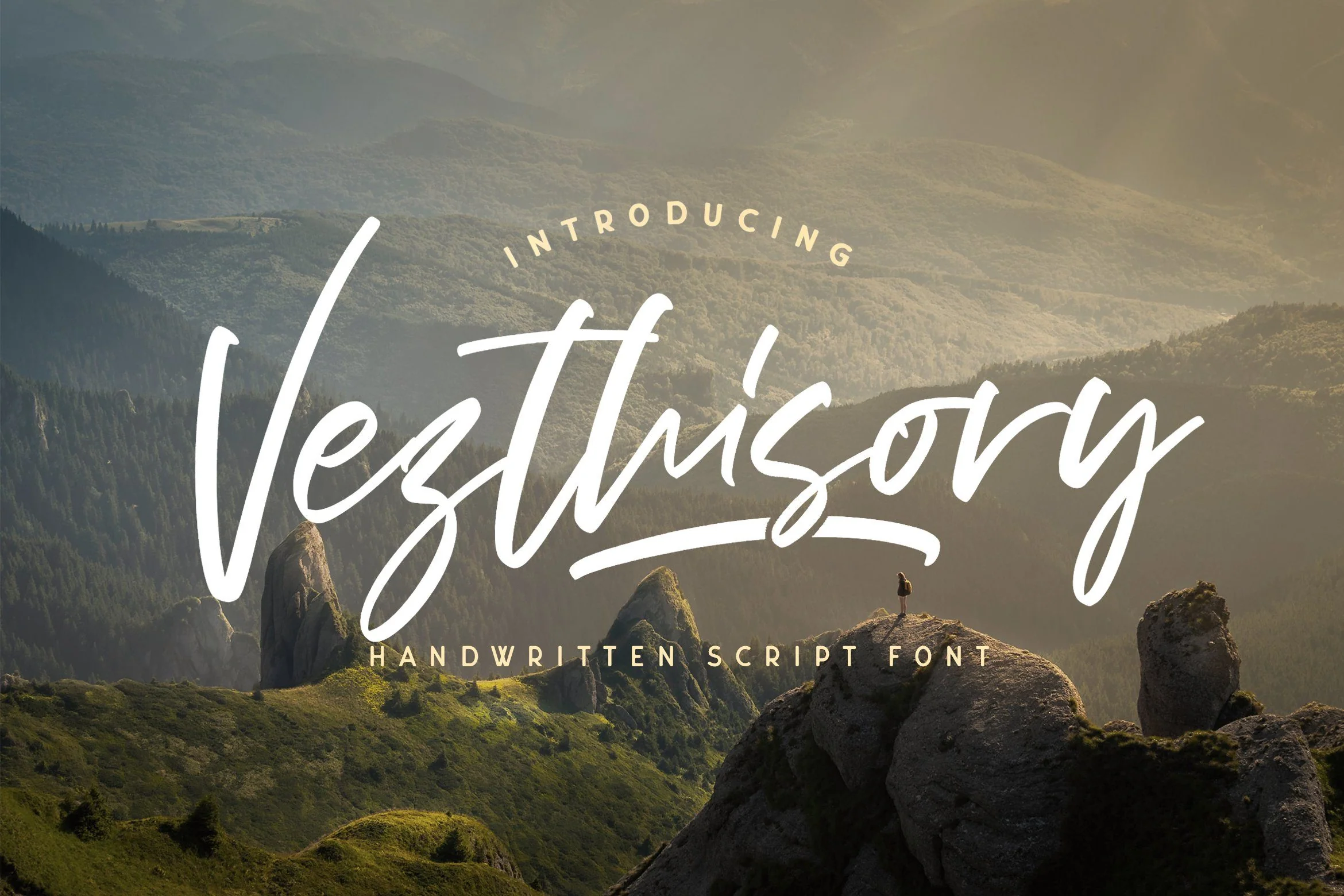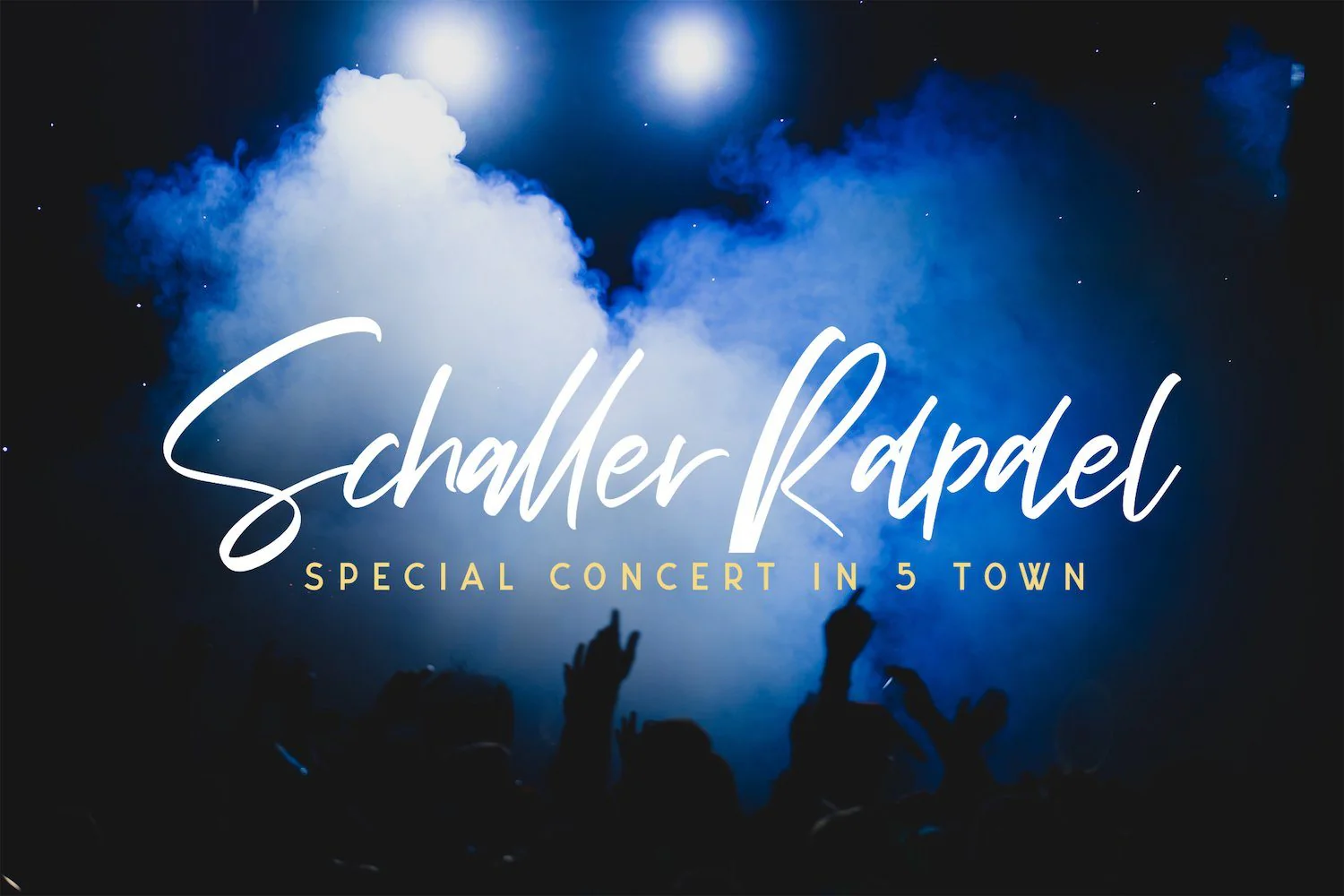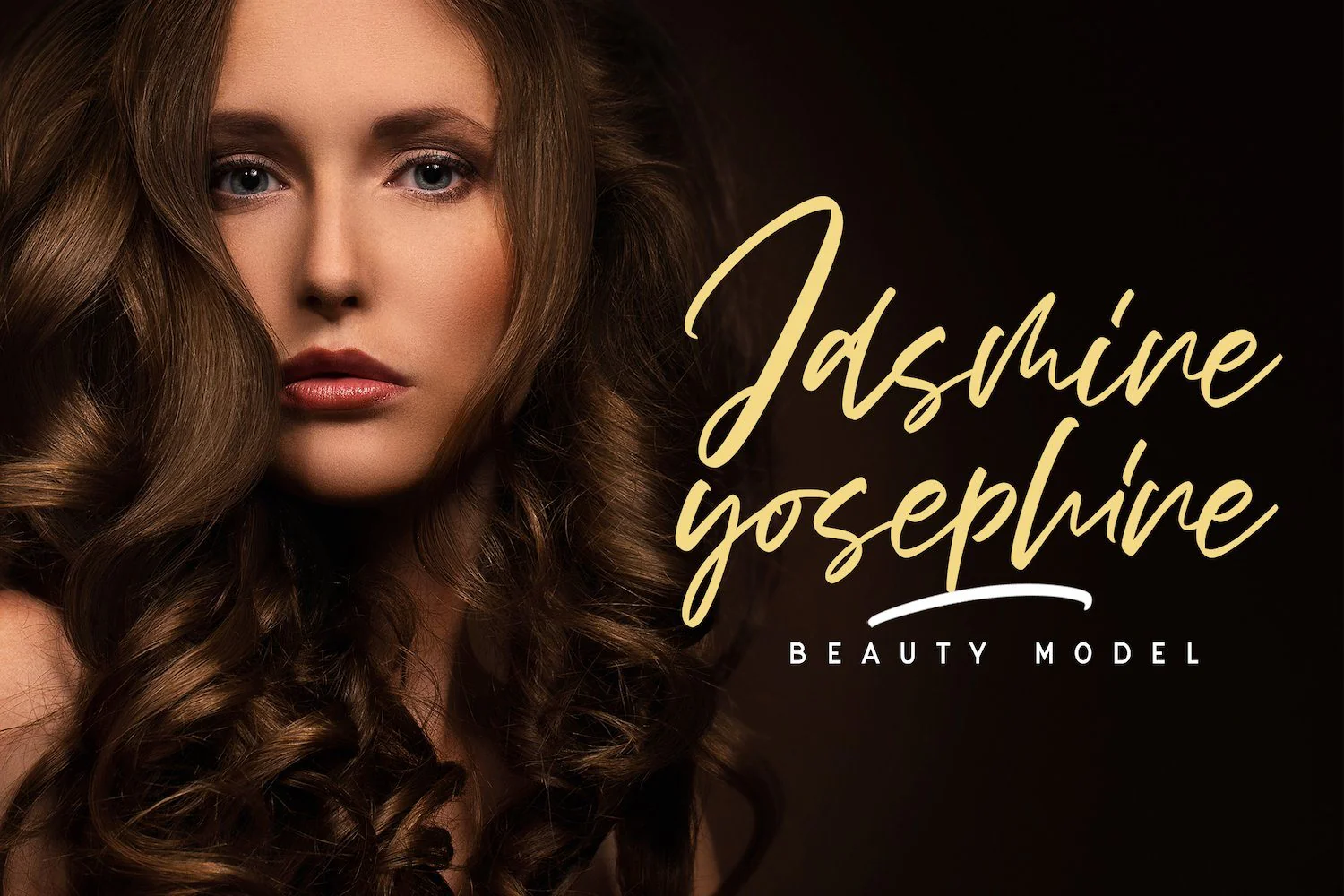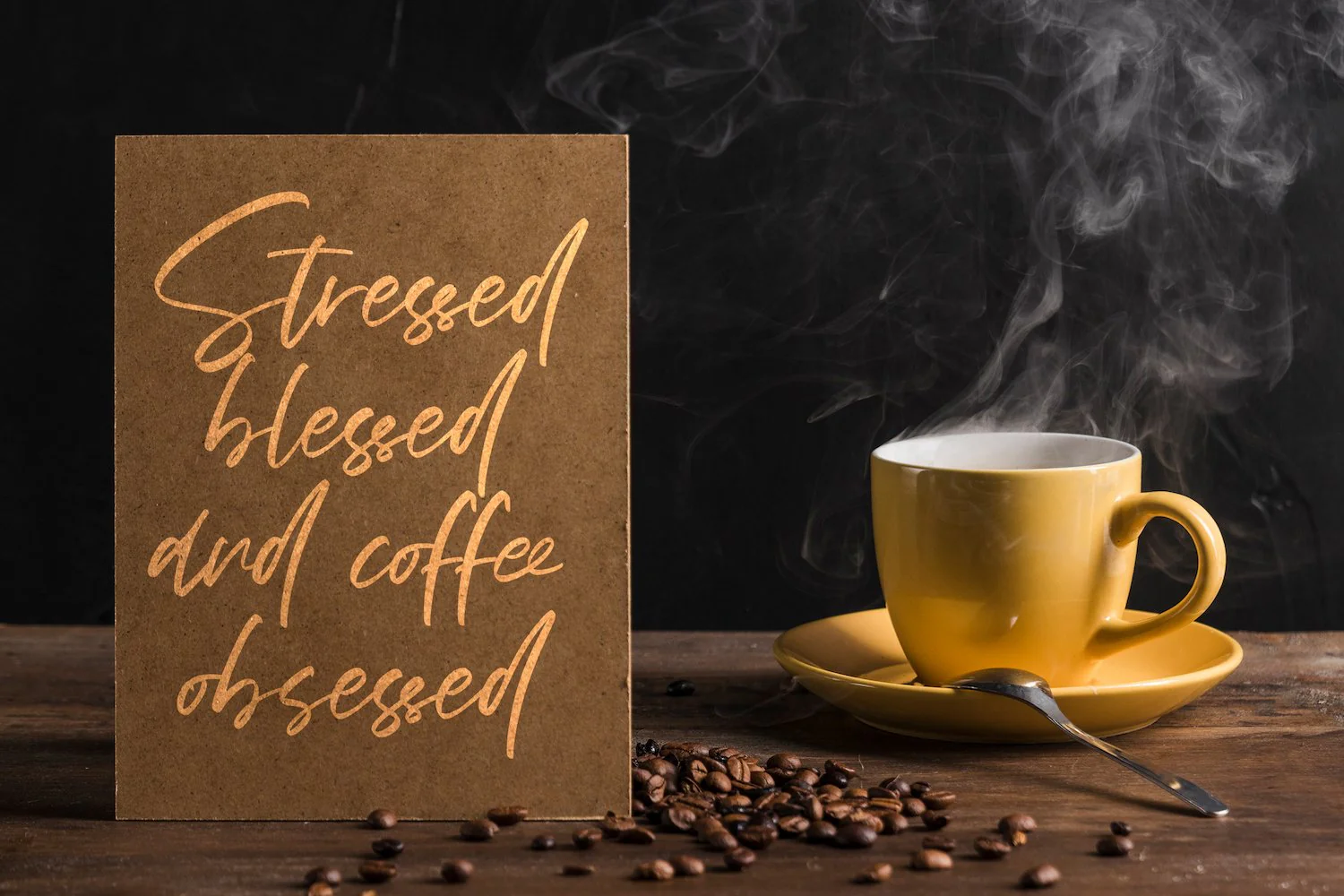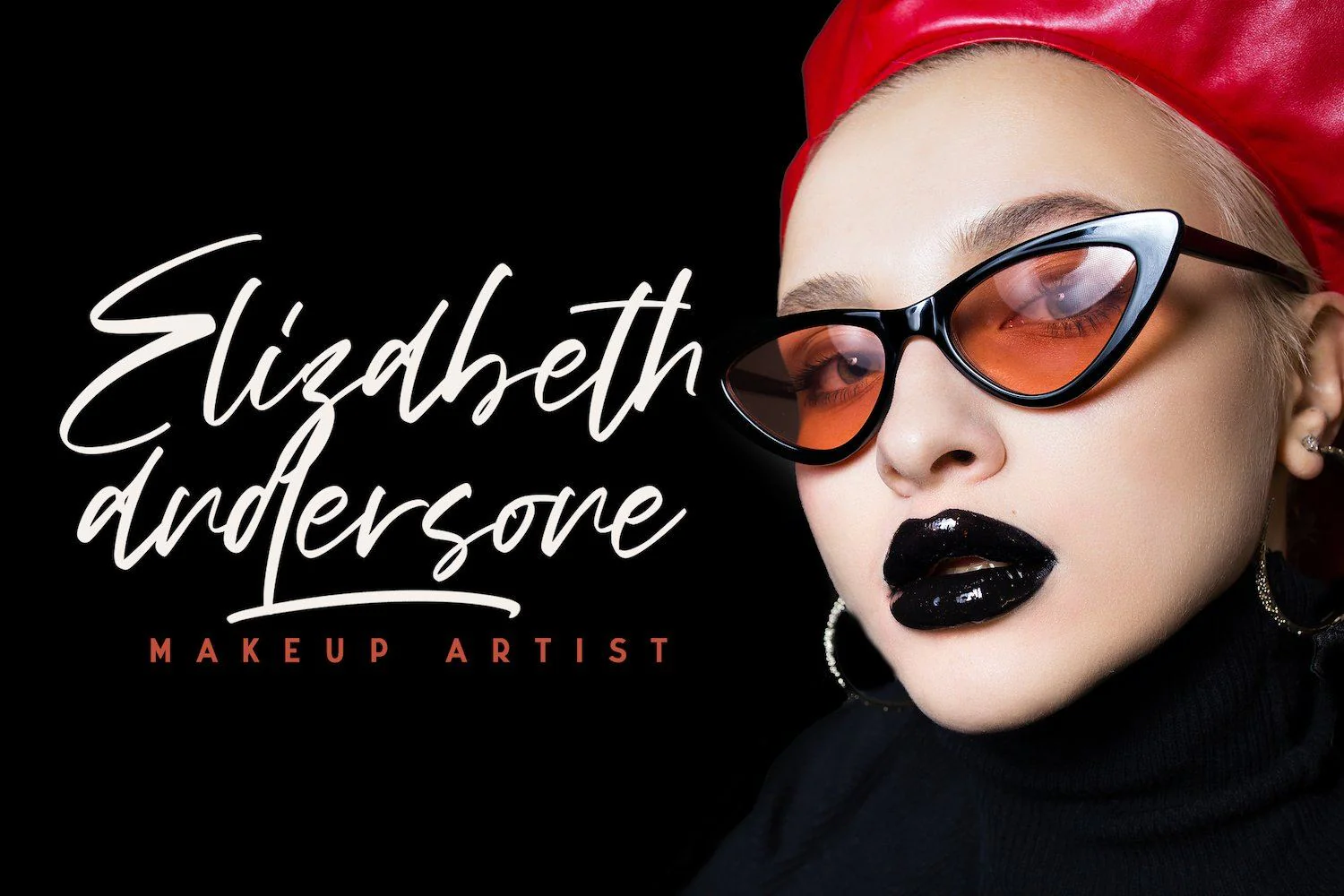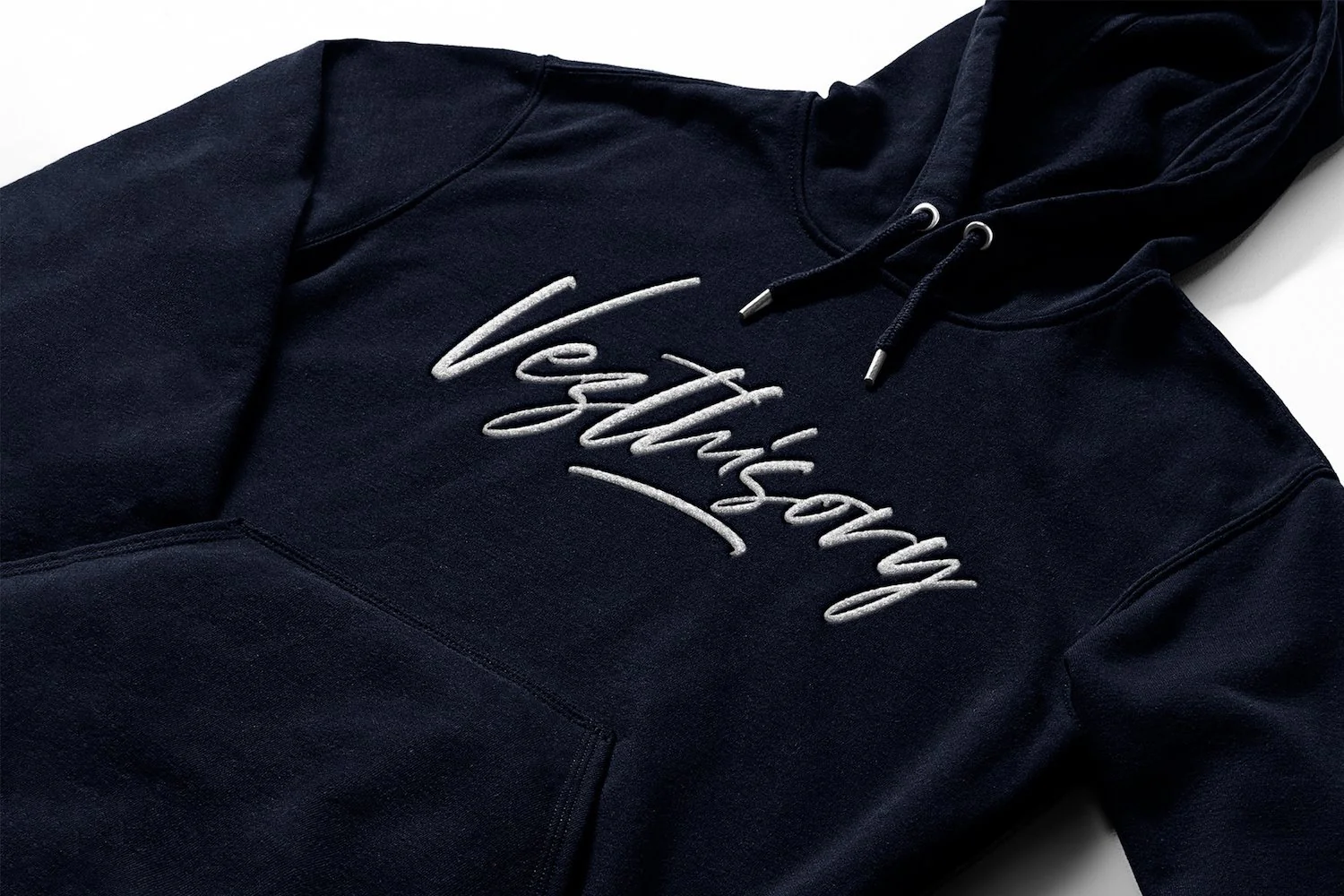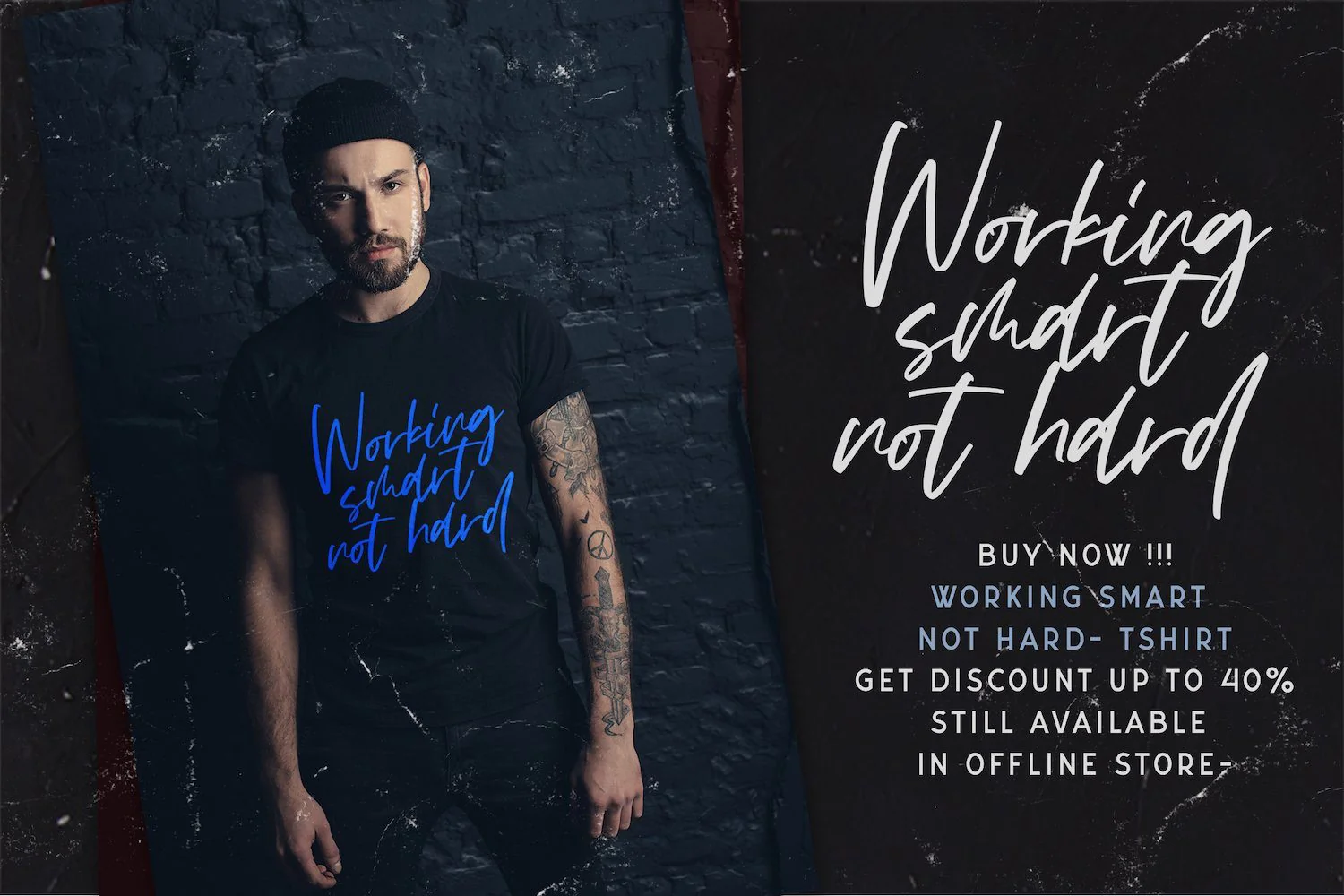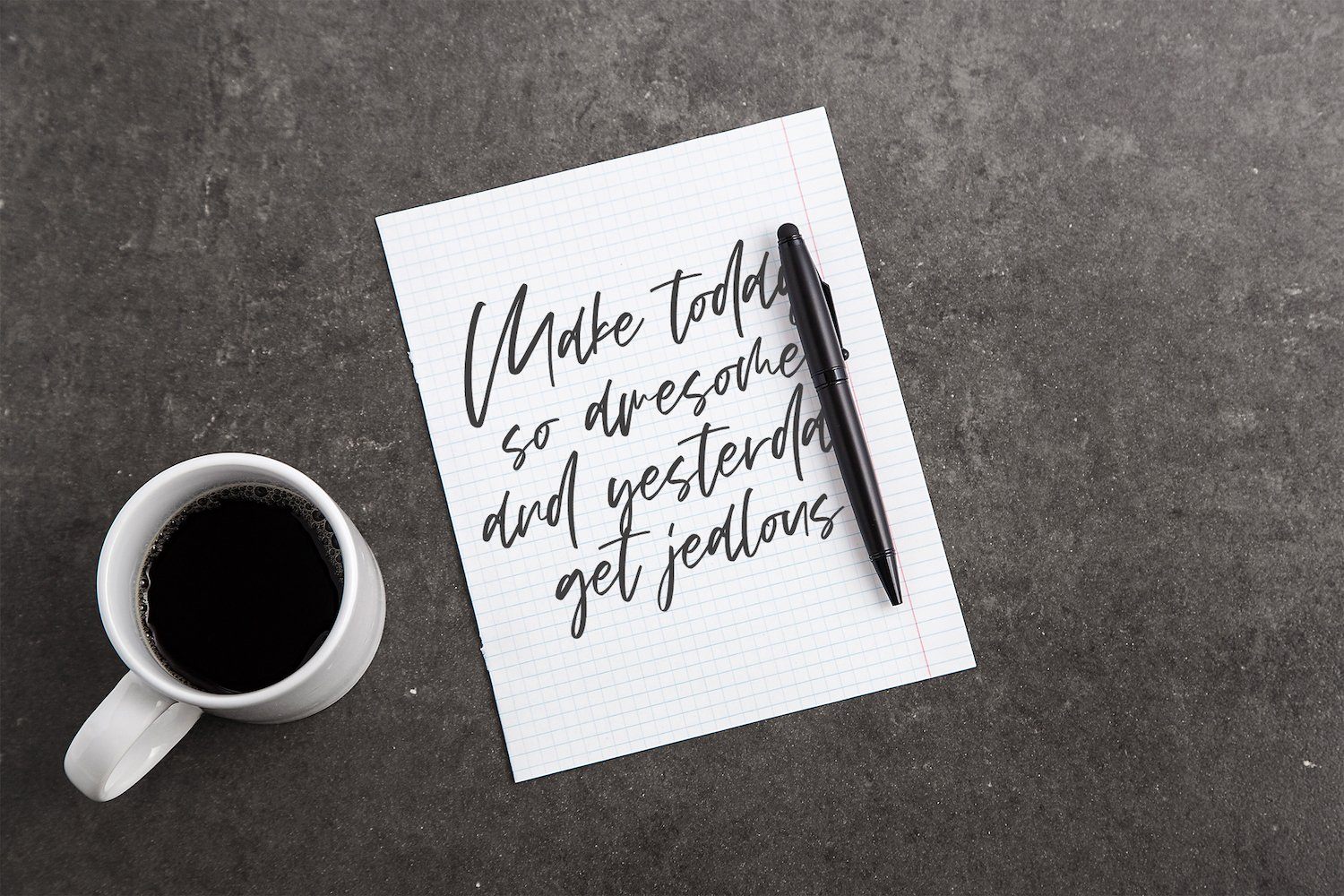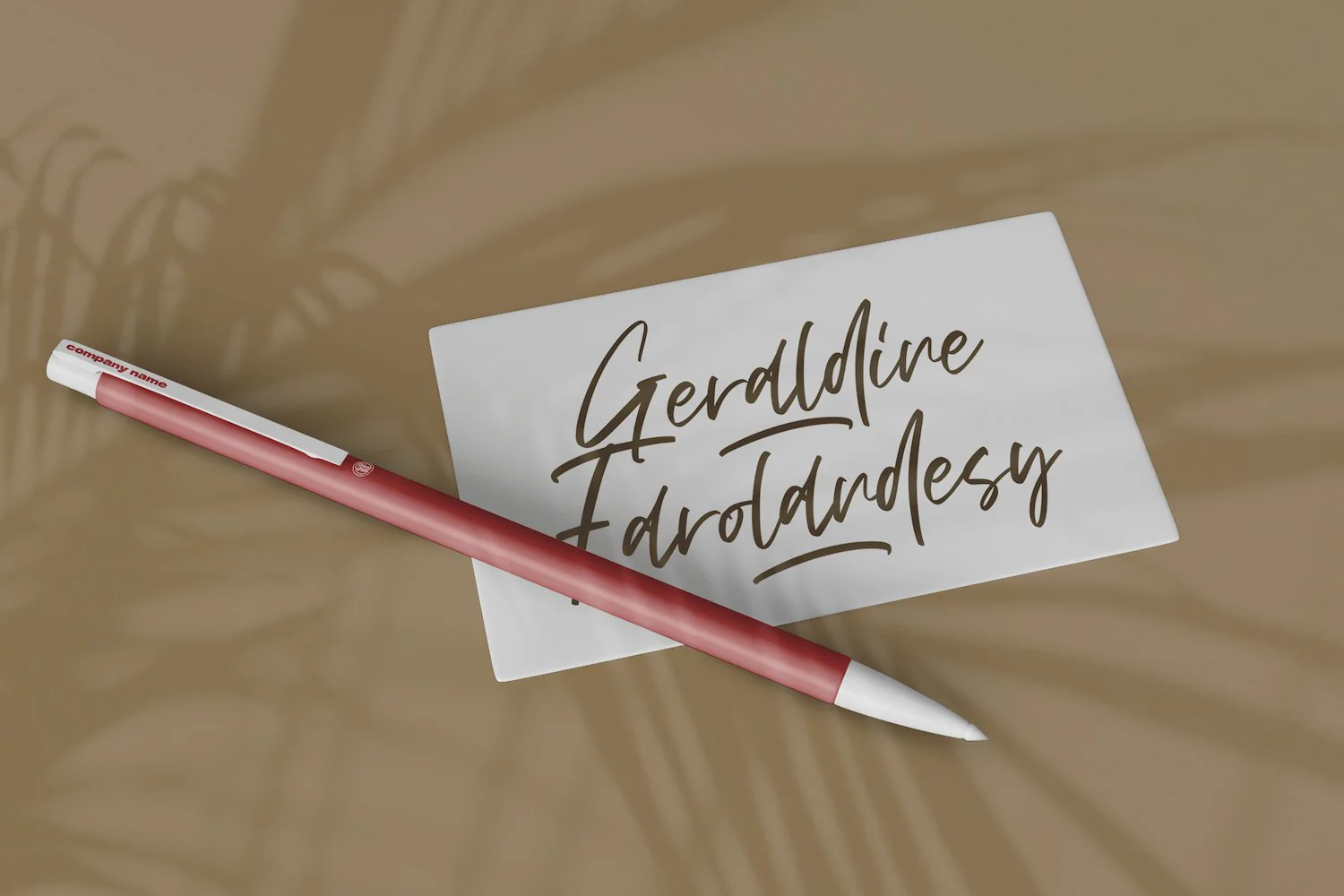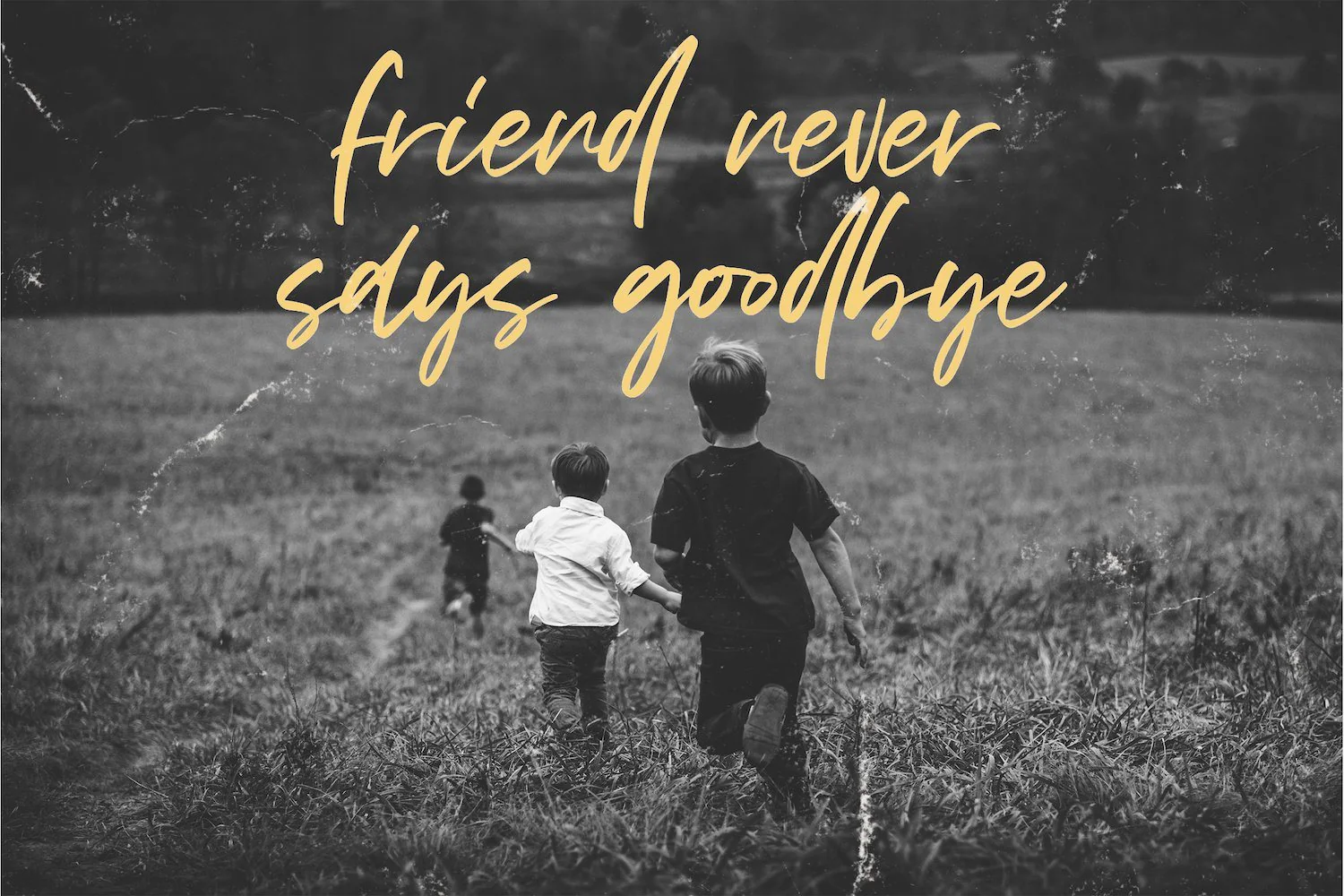
Vezthisory - Handwritten Font
Introducing Vezthisory - Handwritten Font
Vezthisory is a Script Font with Handwritten Style. The Vezthisory font made with digital brush pen strokes that making this font look authentic. This font is perfect for fashion brand, wedding invitation, business card, logo brand, signature, and then calligraphy.
This Font contains Elegant, Creative, Luxury and has a Unique Concept.